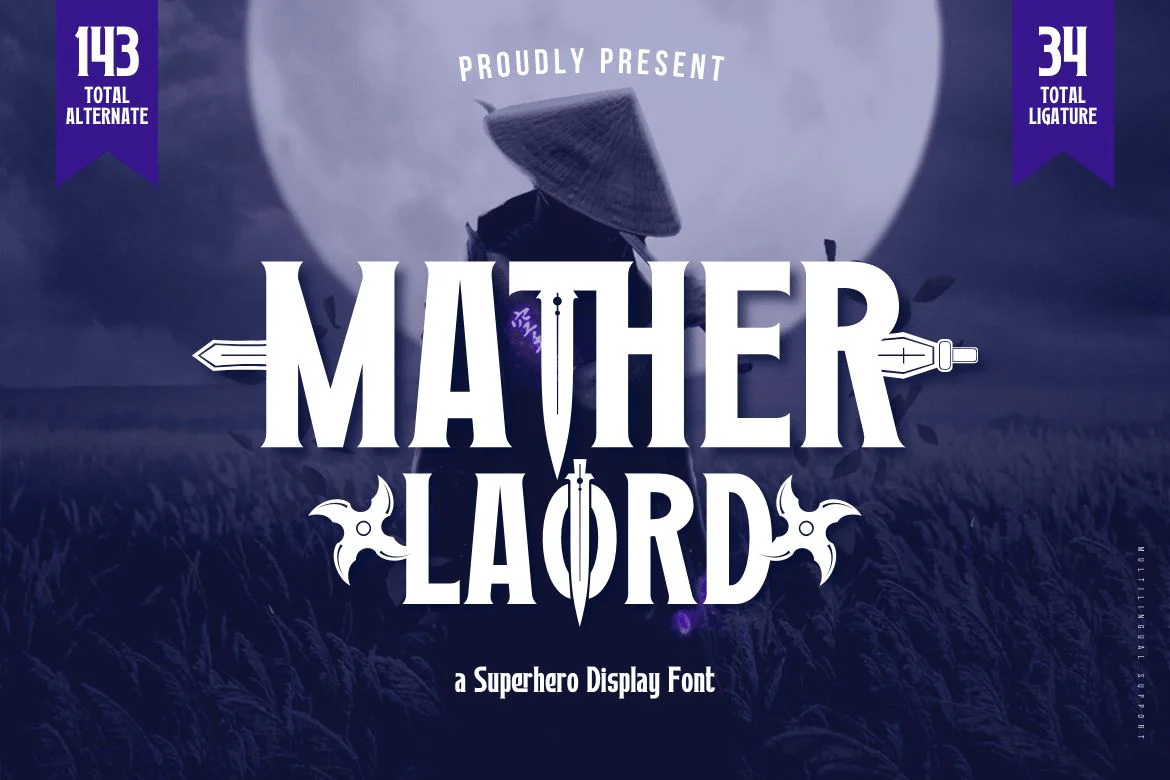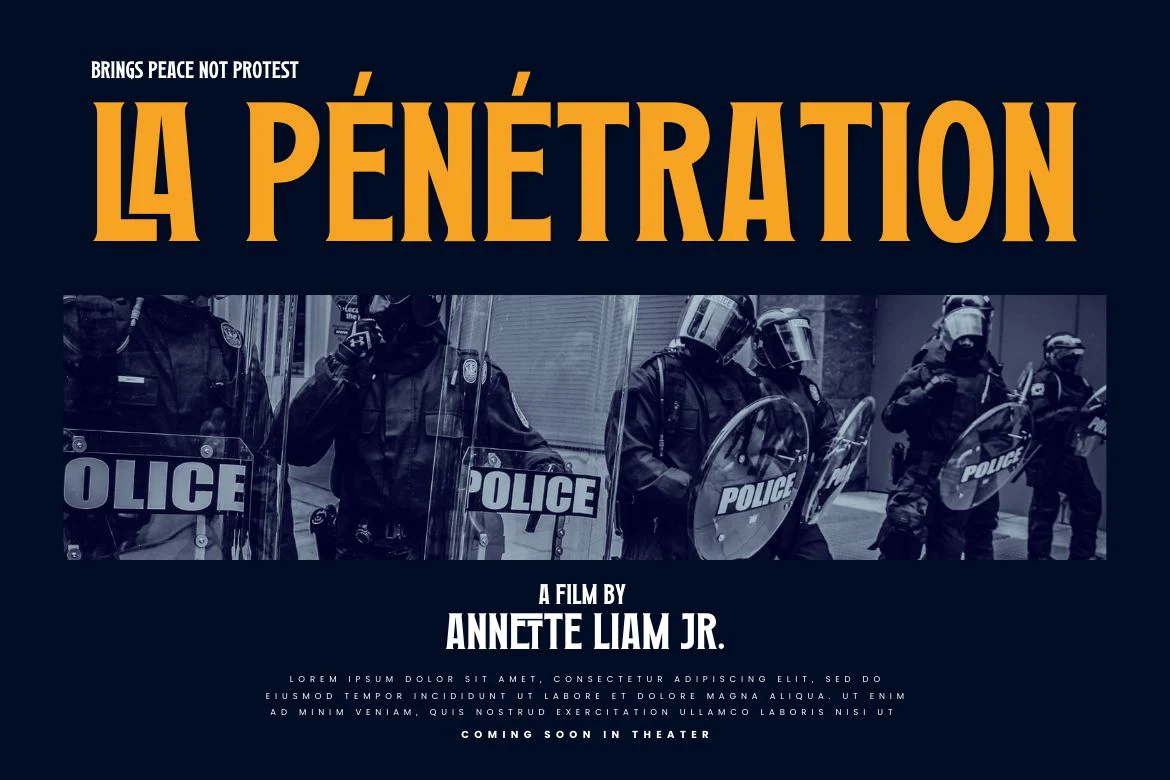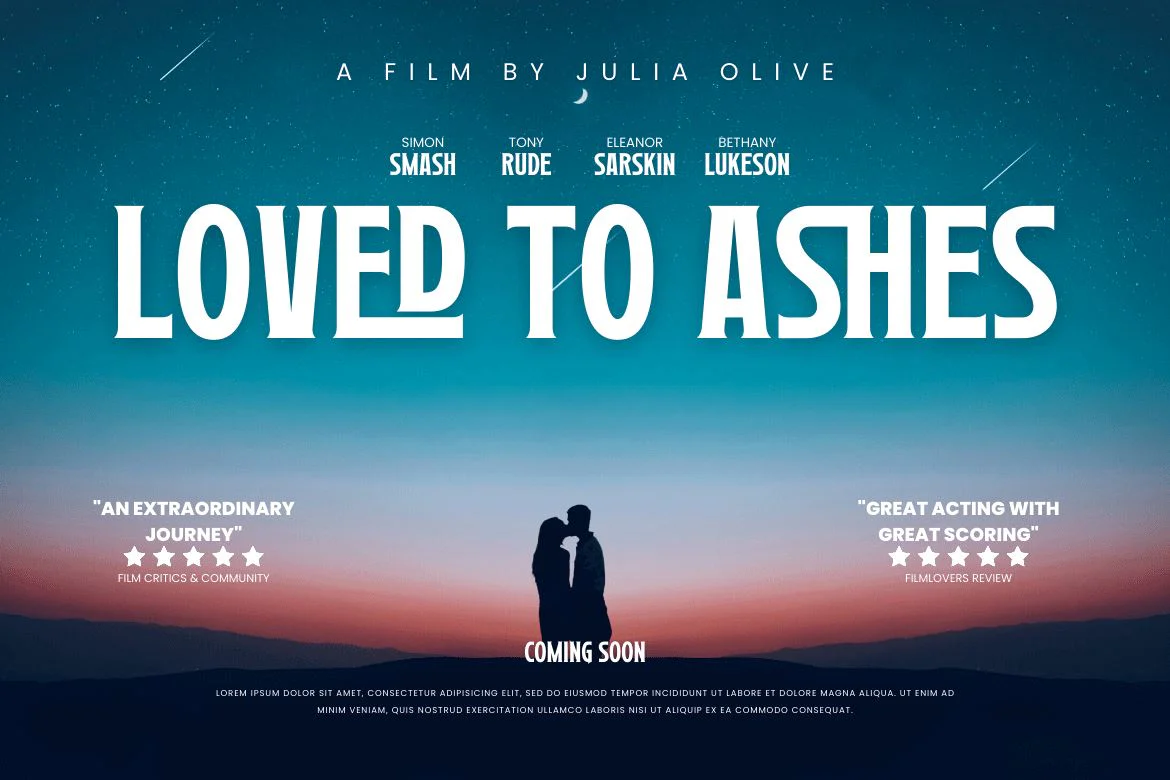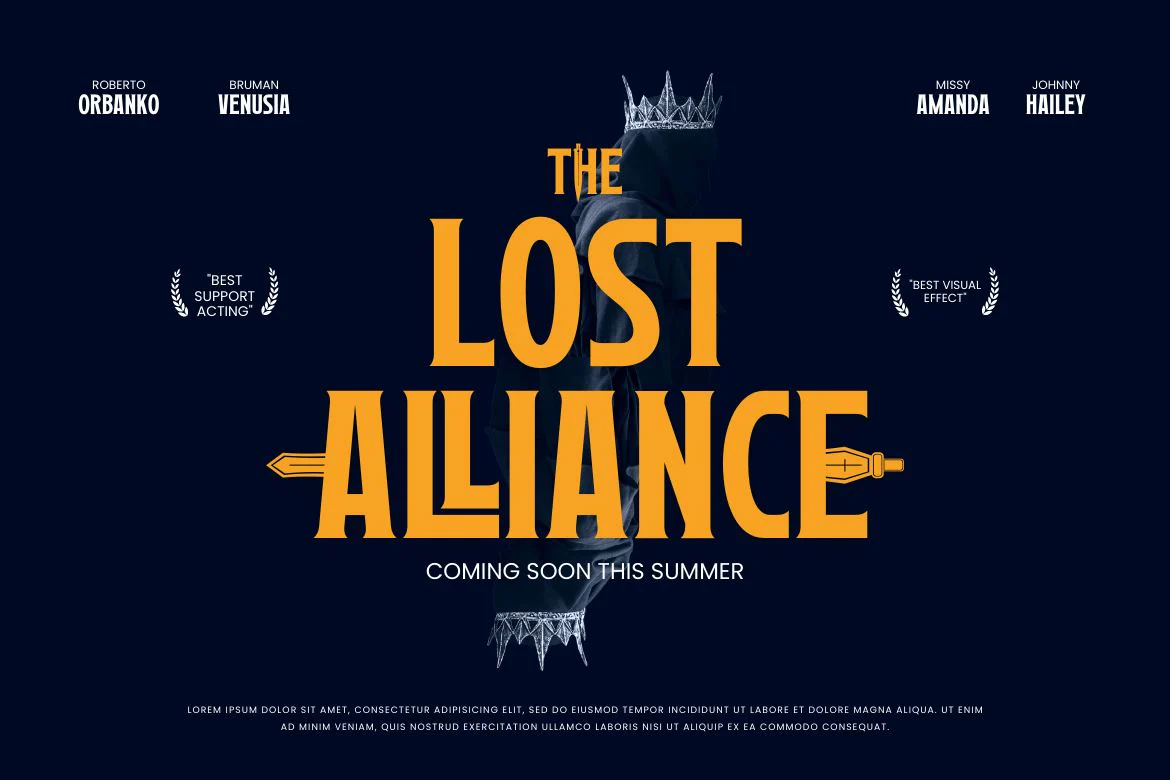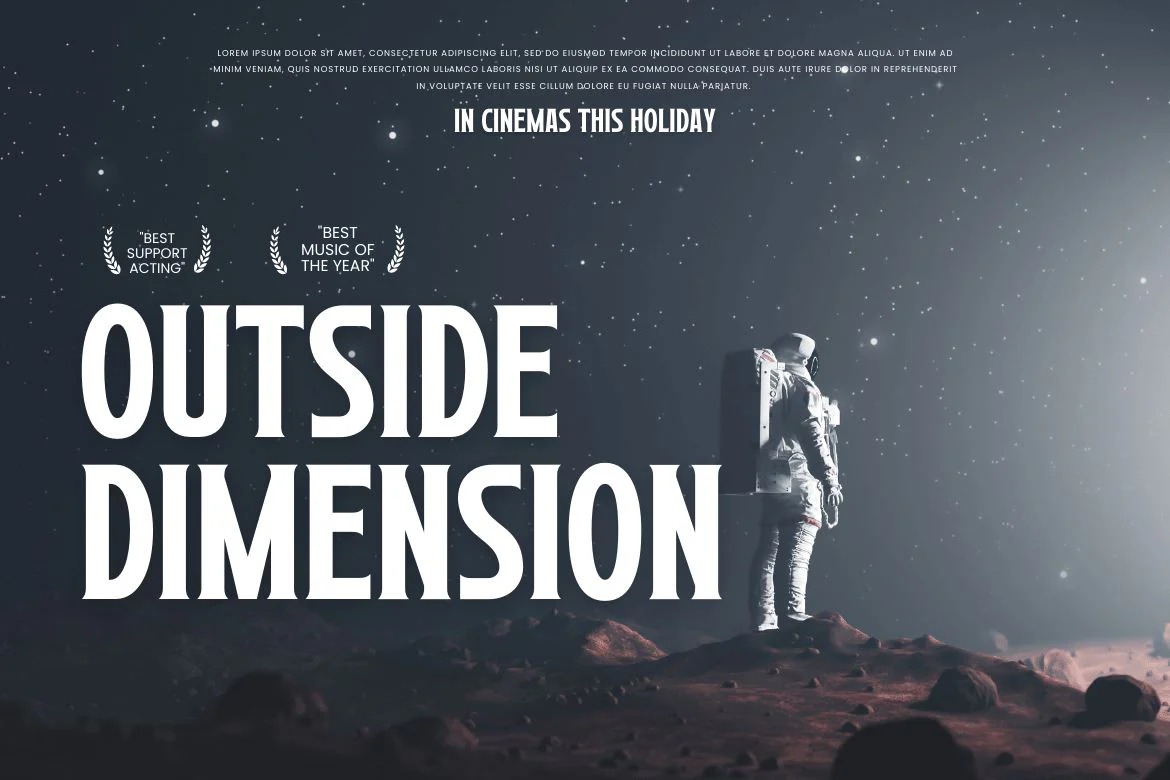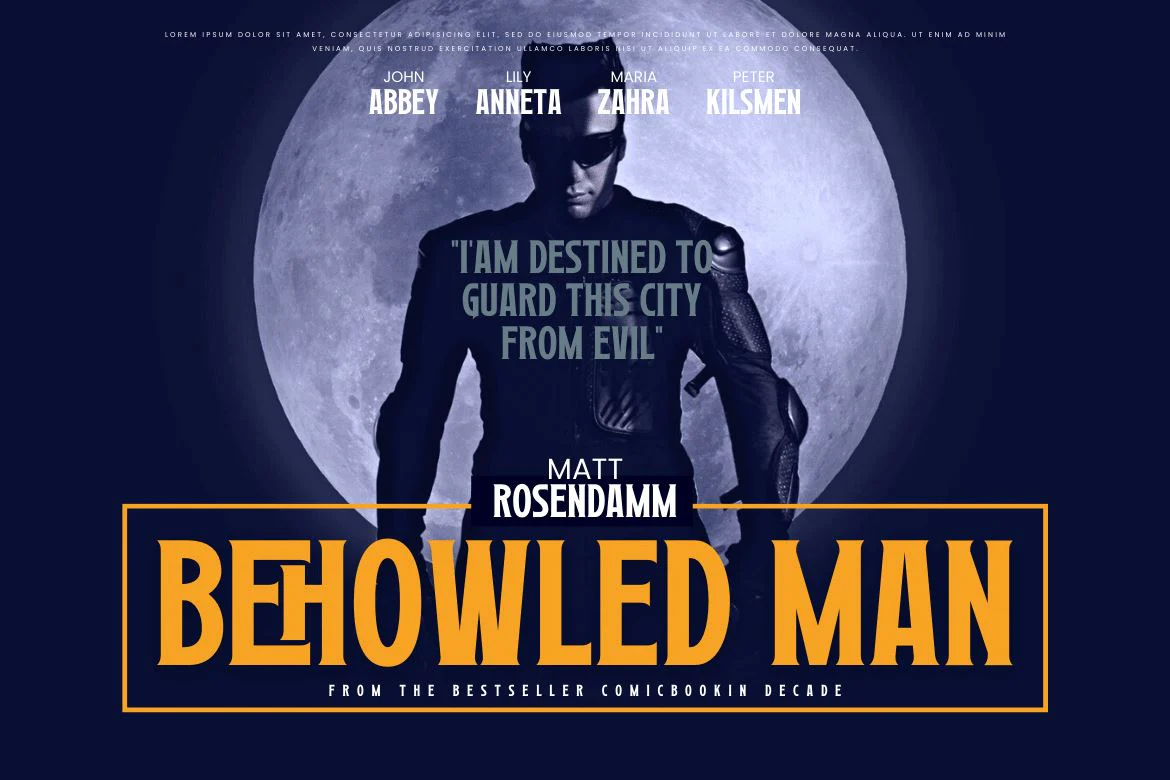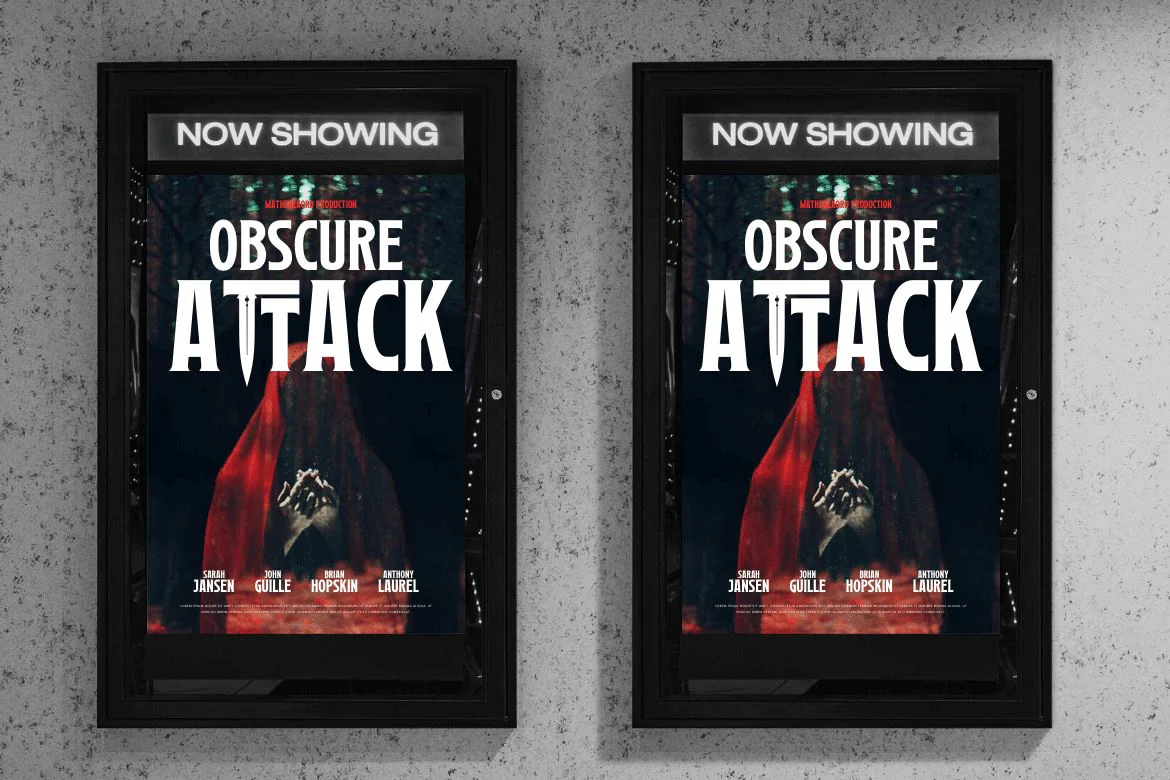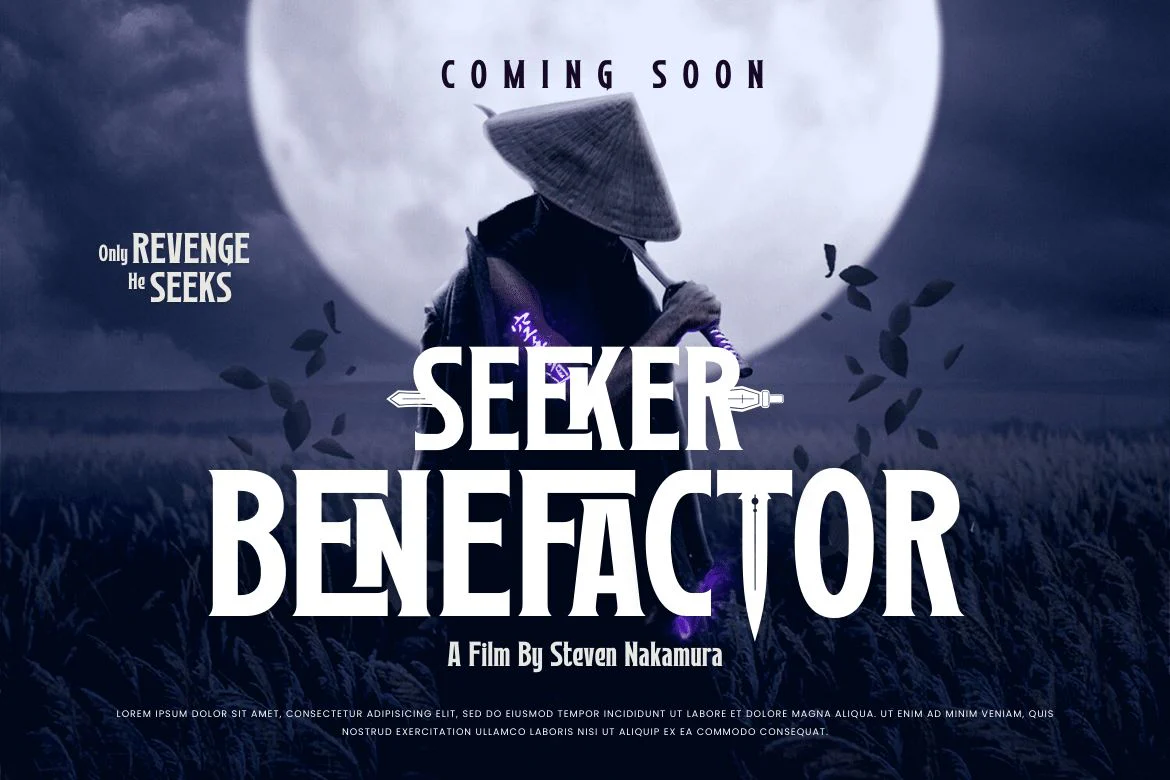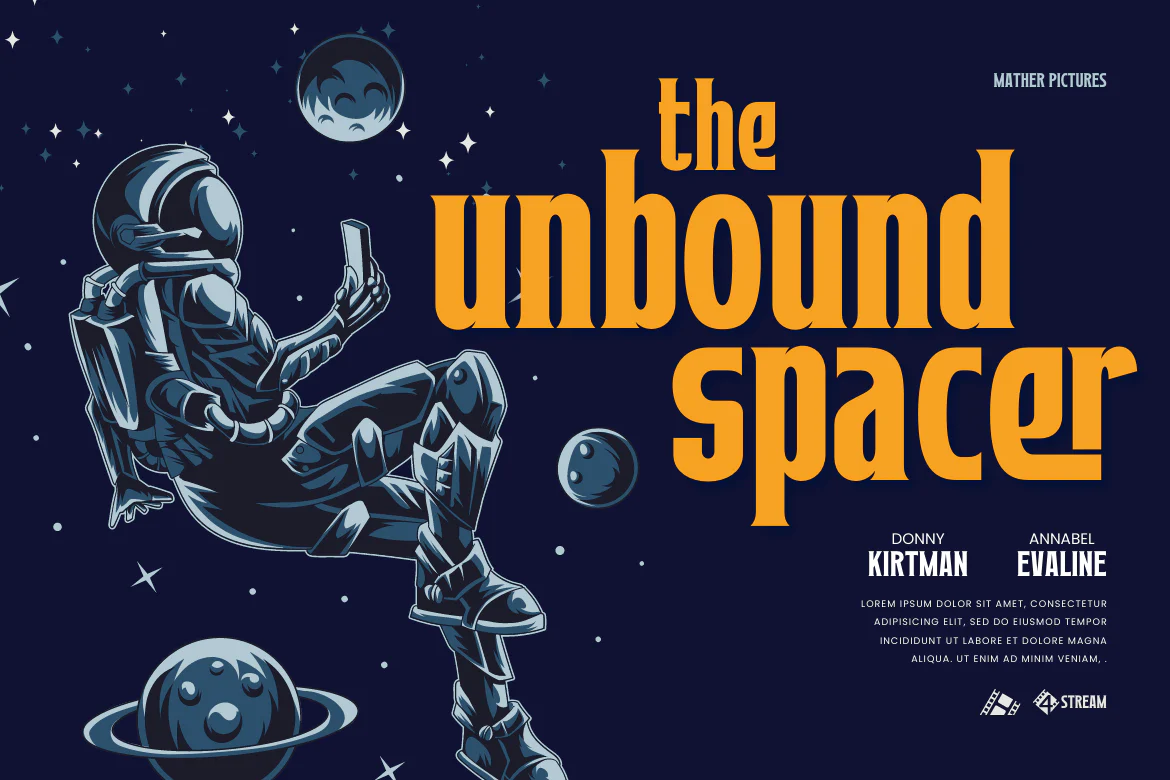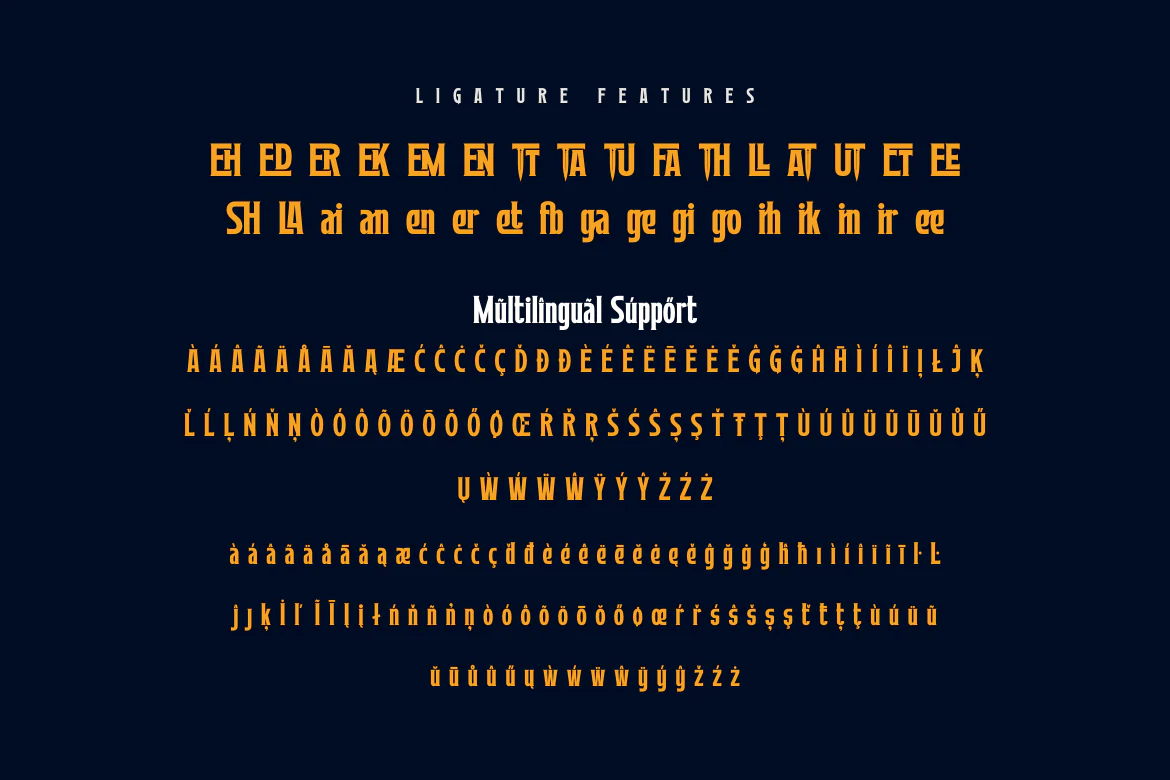
Mather Laord | Display Hero Font
Mather Laord is the perfect hero font for those who want to create powerful and unforgettable hero branding. Its sharp and pointed serif exudes a sense of strength and precision that is perfect for heroes who wield swords or are ninjas. The font’s 143 alternate characters for uppercase and 34 ligatures offer a wide range of options to create unique and memorable typography designs.
Not only does Mather Laord have a stunning appearance, but it also supports multilingual characters, making it a versatile font that can be used globally. Whether designing a logo for a hero-themed brand, creating merch for your favorite hero, or designing a poster for a hero movie, Mather Laord can help you create an impactful and unforgettable design. So, if you want to stand out from the crowd and make a lasting impression on your audience, Mather Laord is the perfect choice for your next hero design project.
Mather Laord is the perfect hero font for those who want to create powerful and unforgettable hero branding. Its sharp and pointed serif exudes a sense of strength and precision that is perfect for heroes who wield swords or are ninjas. The font’s 143 alternate characters for uppercase and 34 ligatures offer a wide range of options to create unique and memorable typography designs.
Not only does Mather Laord have a stunning appearance, but it also supports multilingual characters, making it a versatile font that can be used globally. Whether designing a logo for a hero-themed brand, creating merch for your favorite hero, or designing a poster for a hero movie, Mather Laord can help you create an impactful and unforgettable design. So, if you want to stand out from the crowd and make a lasting impression on your audience, Mather Laord is the perfect choice for your next hero design project.